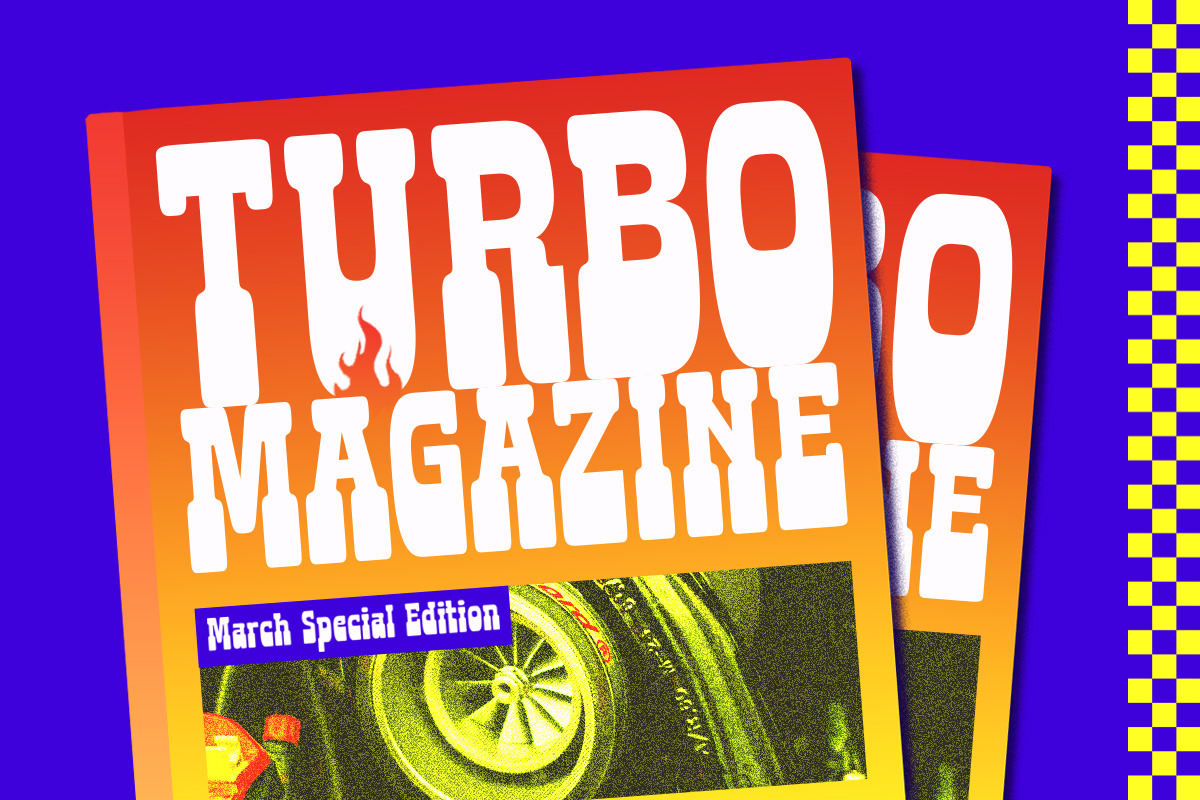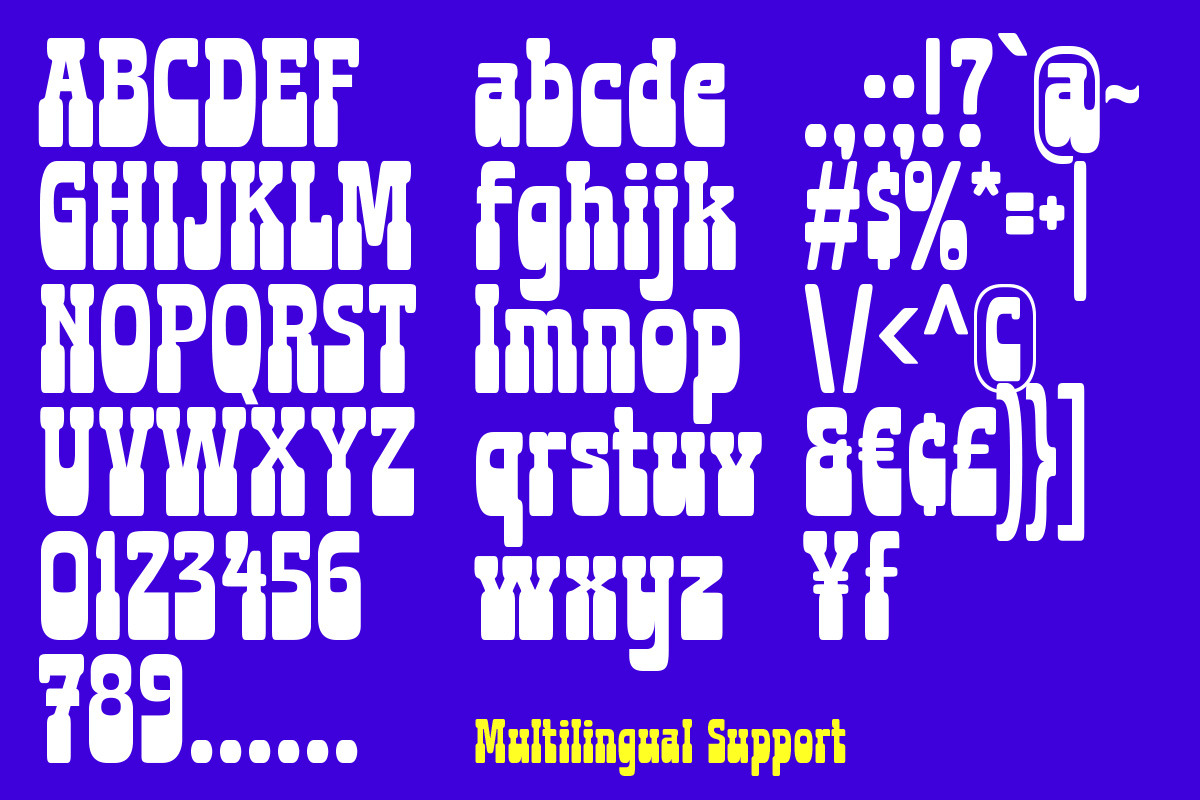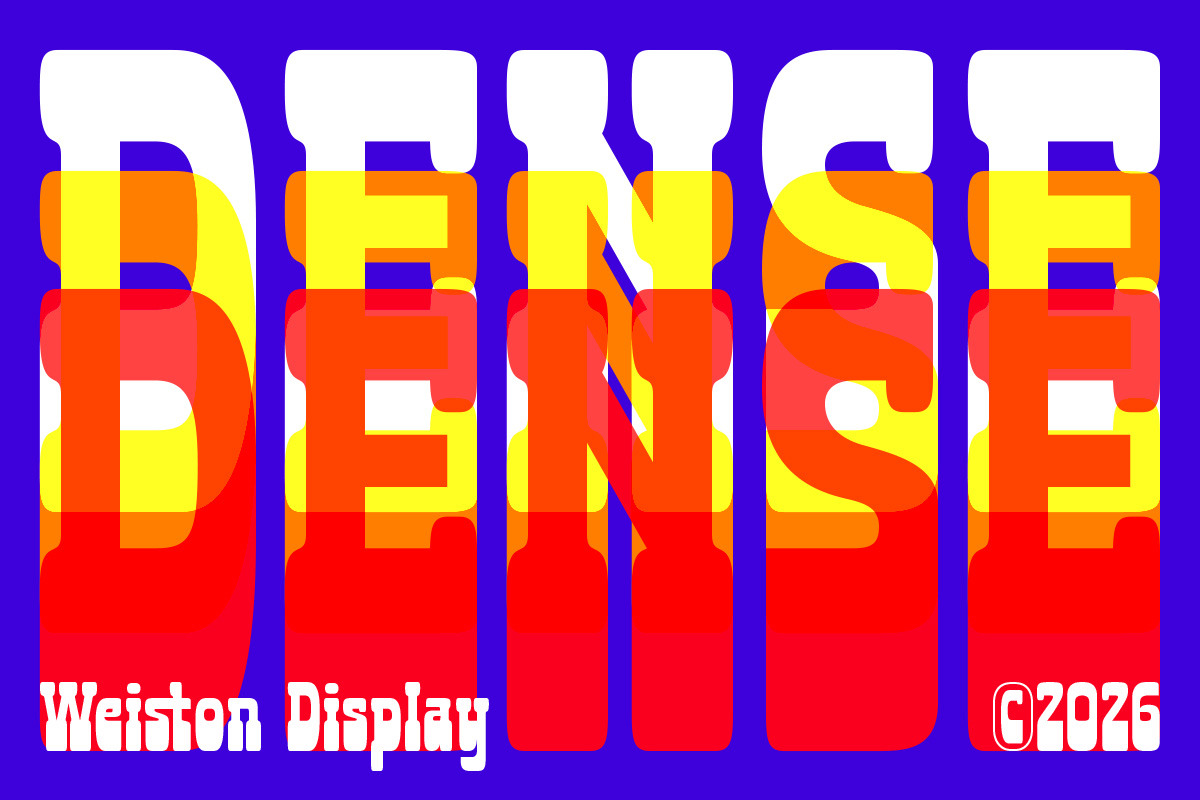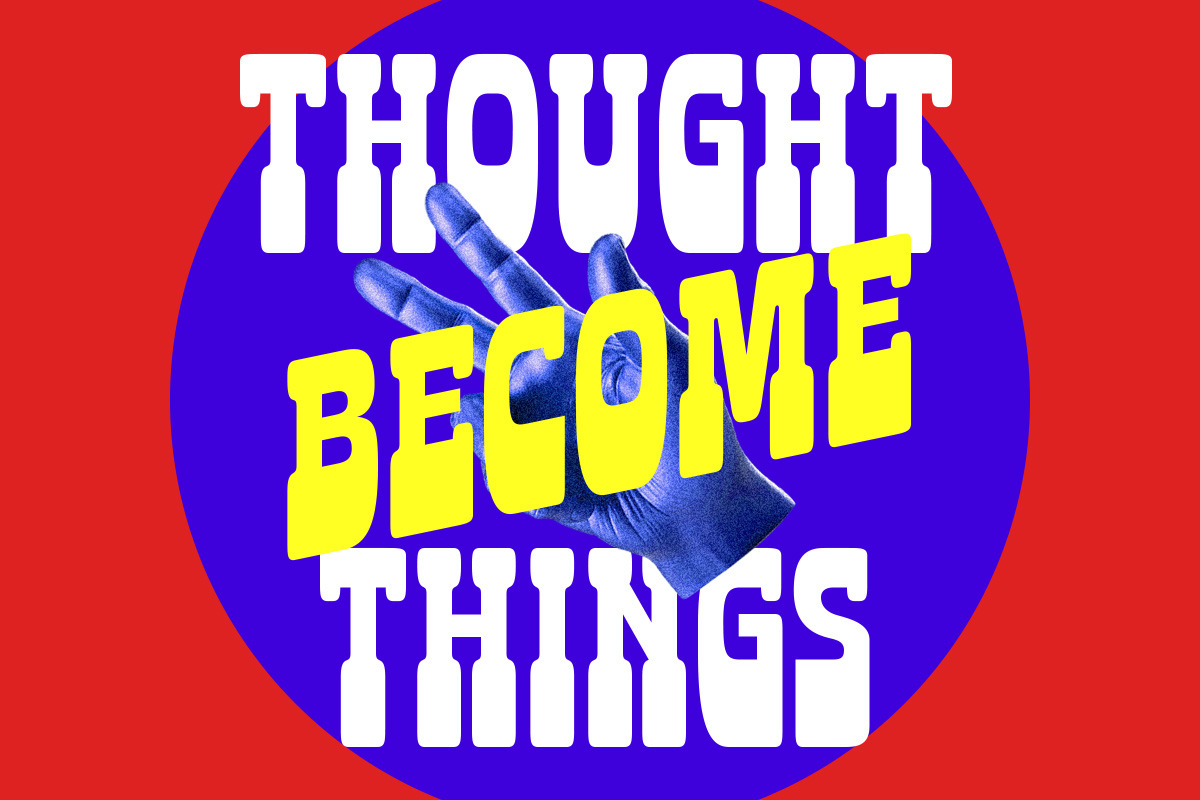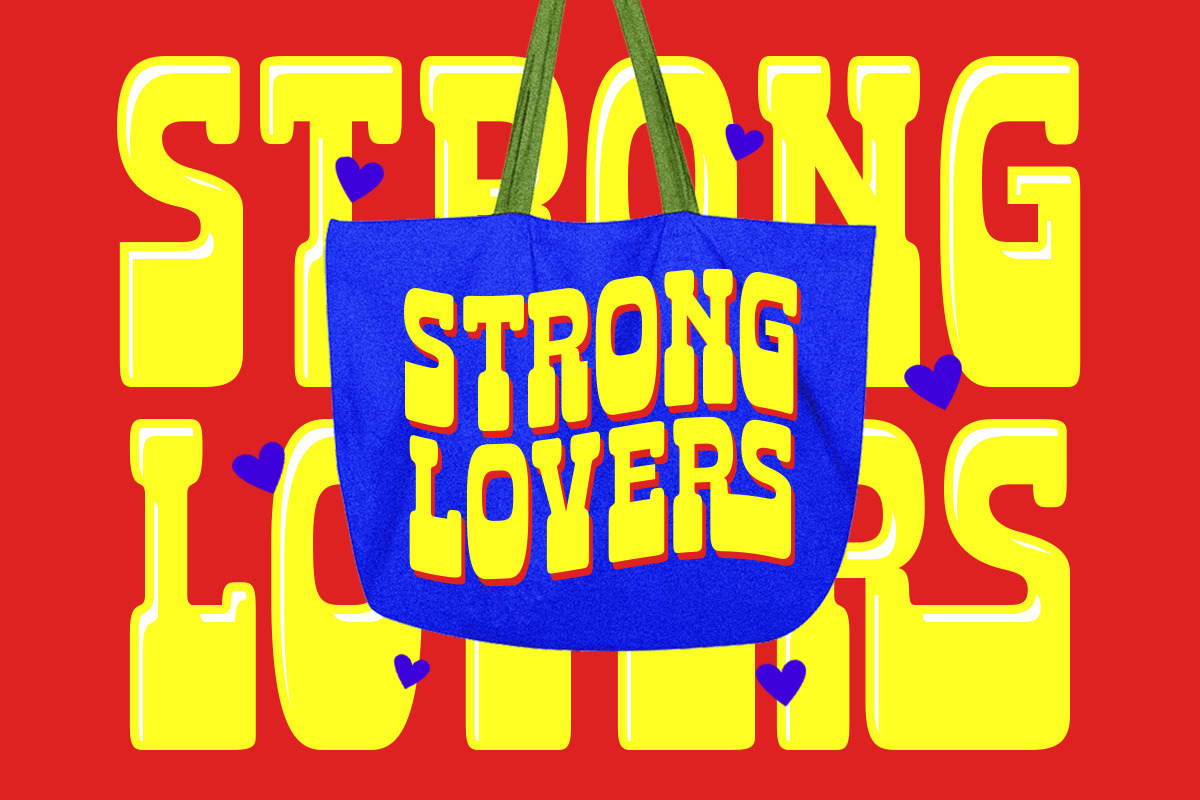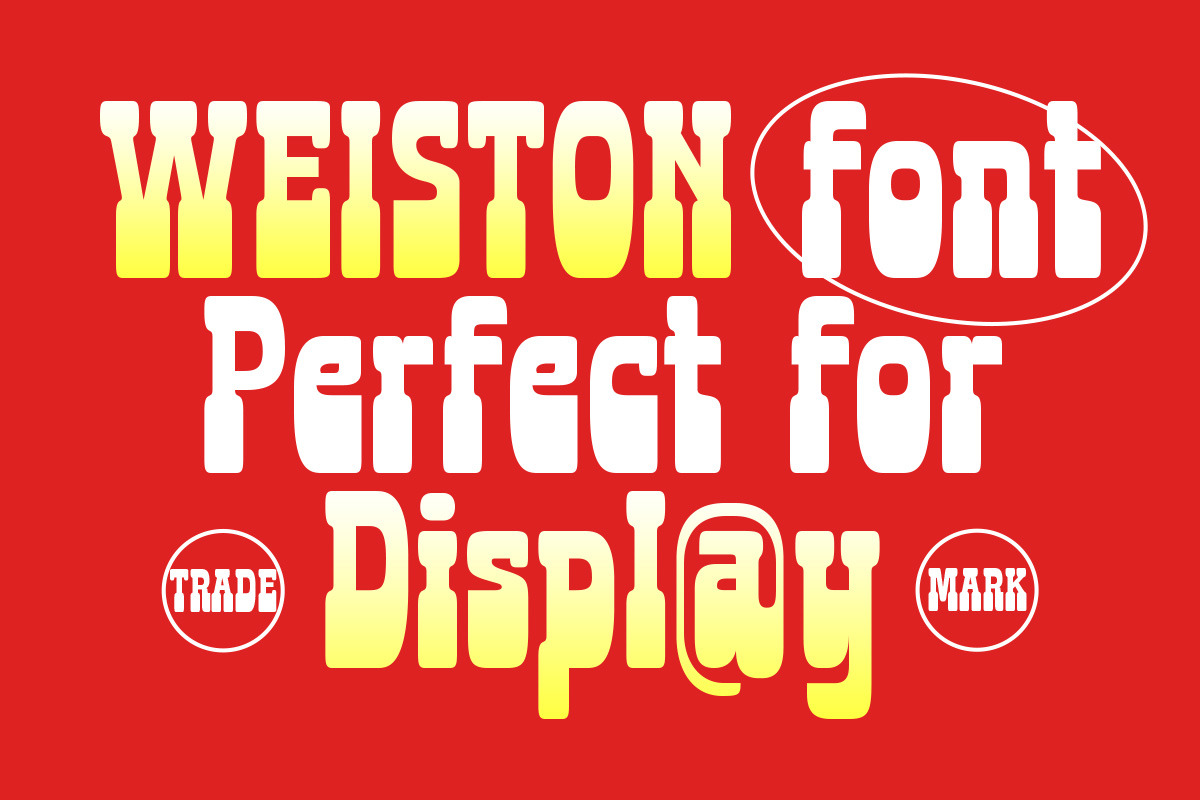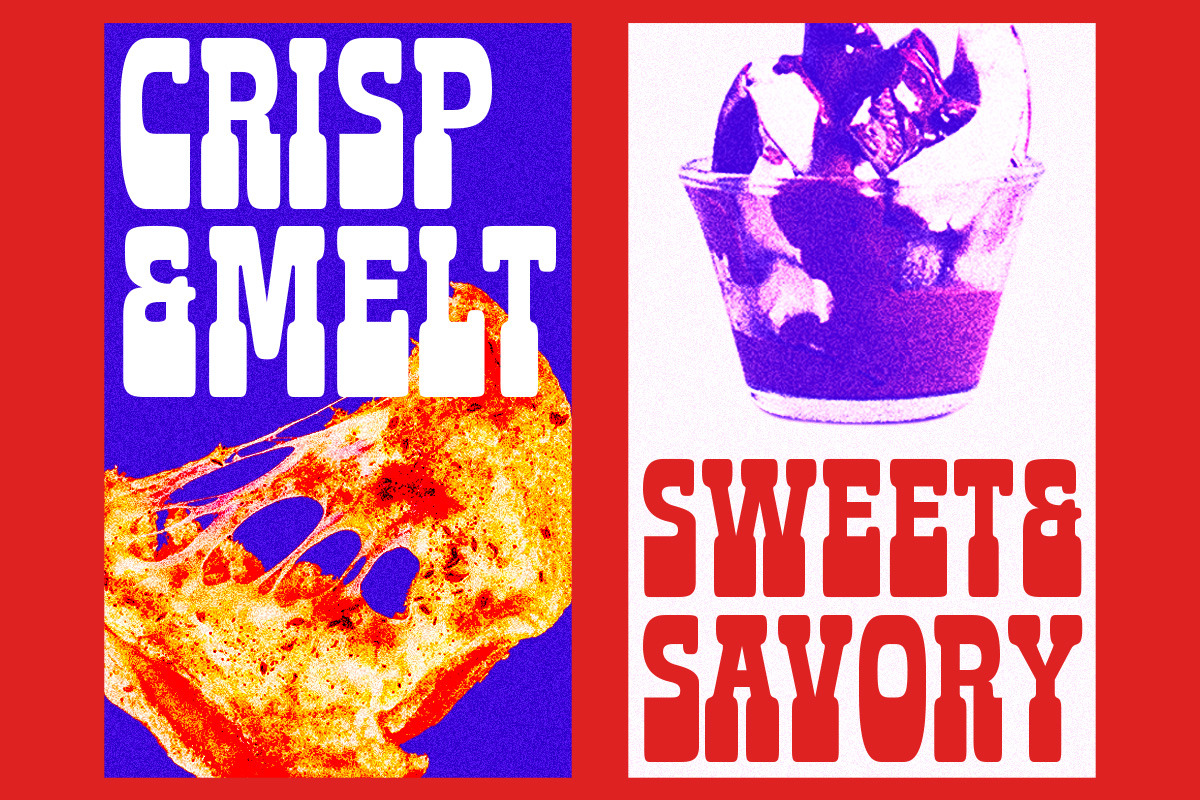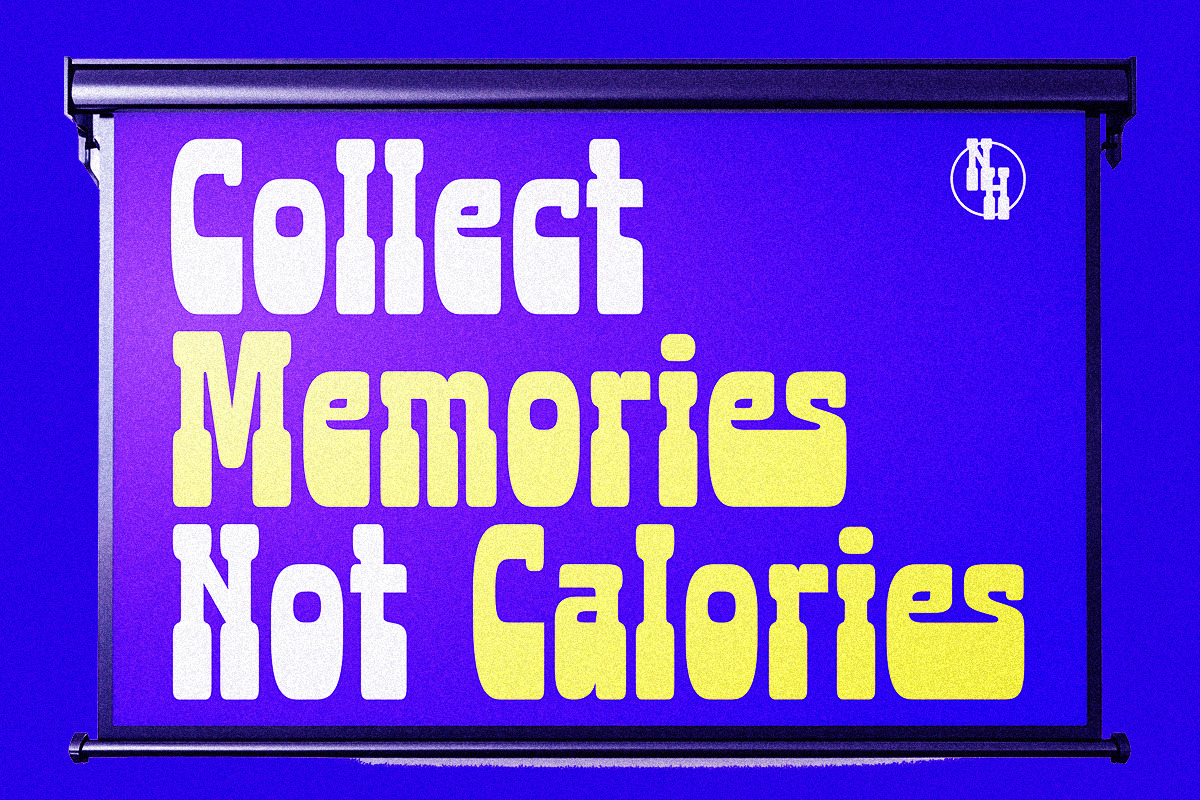
Weiston Slab Serif Display
Big, bold, and ready to play—Weiston brings a chunky rounded slab serif style with a fun retro punch. Its strong shapes and soft edges create a confident look that feels both classic and playful, like vintage sports posters and old-school signage rolled into one cool typeface.